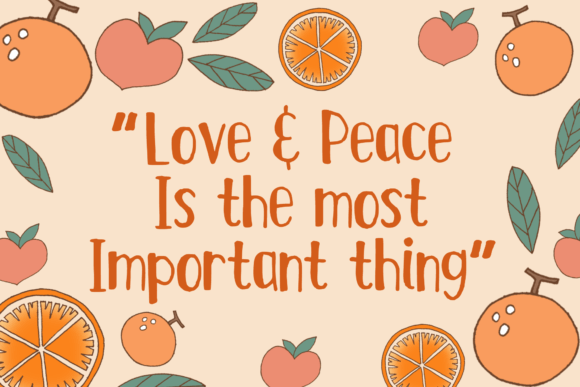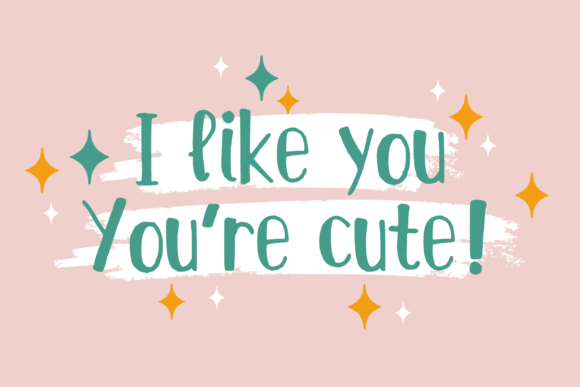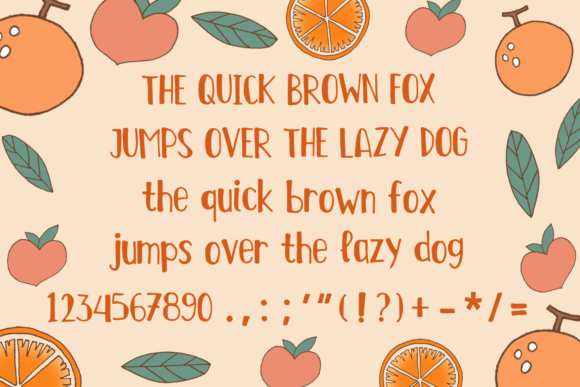
Introduction to Pastel Aesthetic Font Font
Fonts play a crucial role in design, and the Pastel Aesthetic Font font is a typeface that brings both character and versatility to any project. Whether you’re working on a branding project, a website, or a print design, the Pastel Aesthetic Font font offers a unique style that can elevate your work.
Pastel Aesthetic is a lovely and playful handlettering font.
You can use it for anything ranging from t-shirts, book designs, packaging and greeting cards to stickers and posters, or anything that needs a casual touch If you want to use it for Christmas or Valentine or other lovely themed designs, it will be your perfect font to pick.
Key Features of Pastel Aesthetic Font Font
Why Choose Pastel Aesthetic Font Font?
The Pastel Aesthetic Font font is more than just a typeface – it’s a design tool that helps you communicate your message with style and clarity. Its unique character set and versatile design make it suitable for a wide range of applications, from elegant invitations to bold headlines.
With its carefully crafted letterforms and balanced proportions, the Pastel Aesthetic Font font ensures readability and visual appeal across all mediums.
What makes Pastel Aesthetic Font font special?
The Pastel Aesthetic Font font stands out with its unique design, exceptional readability, and versatility across various design applications.